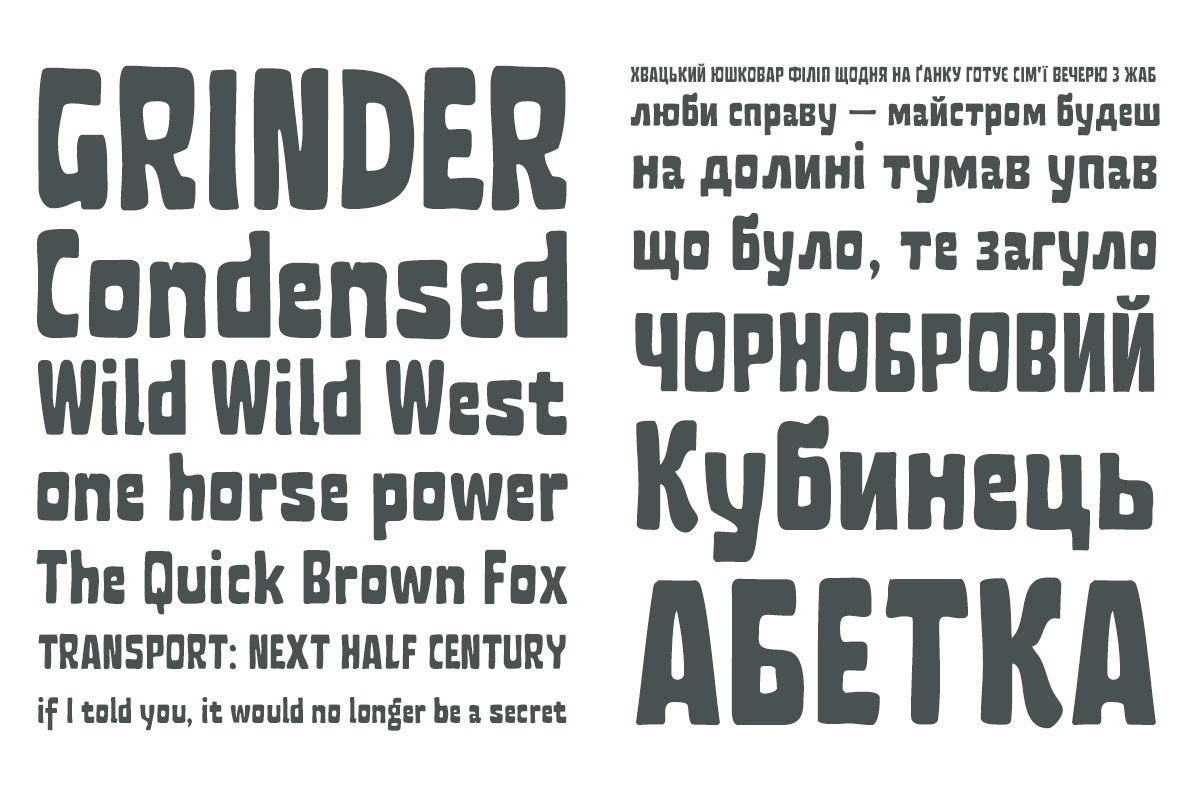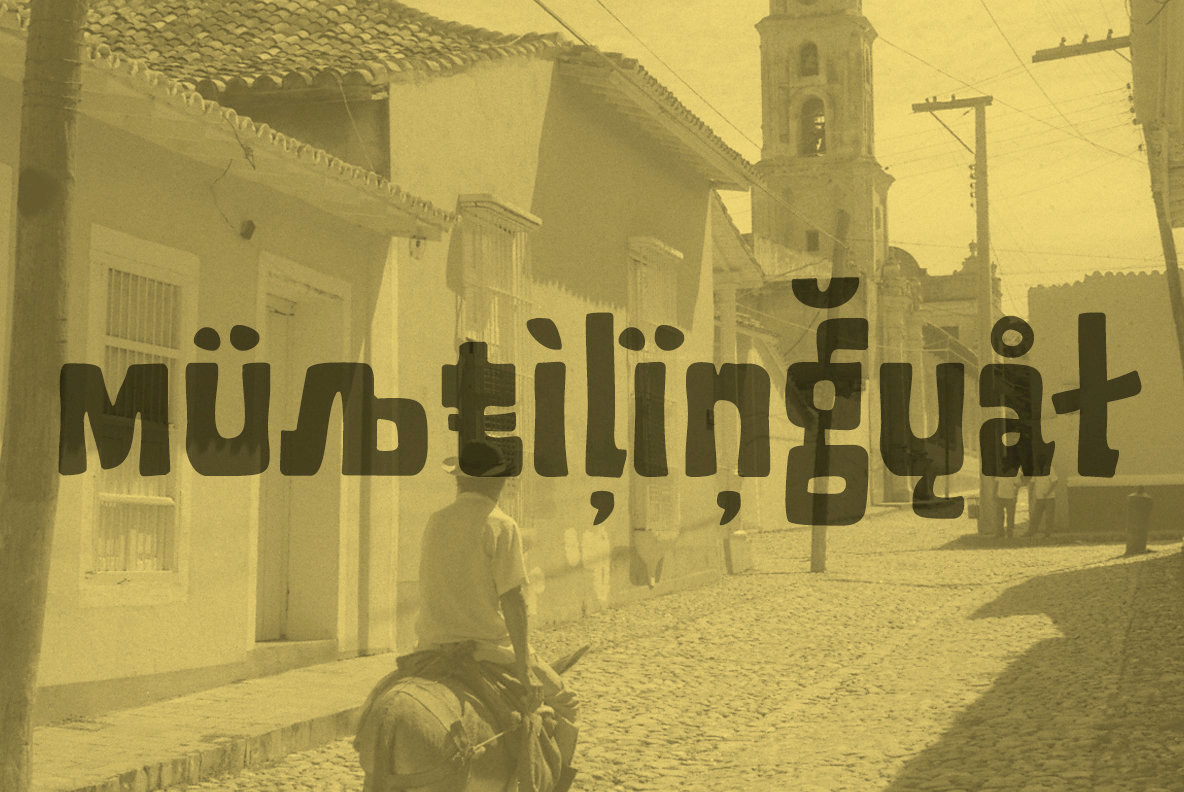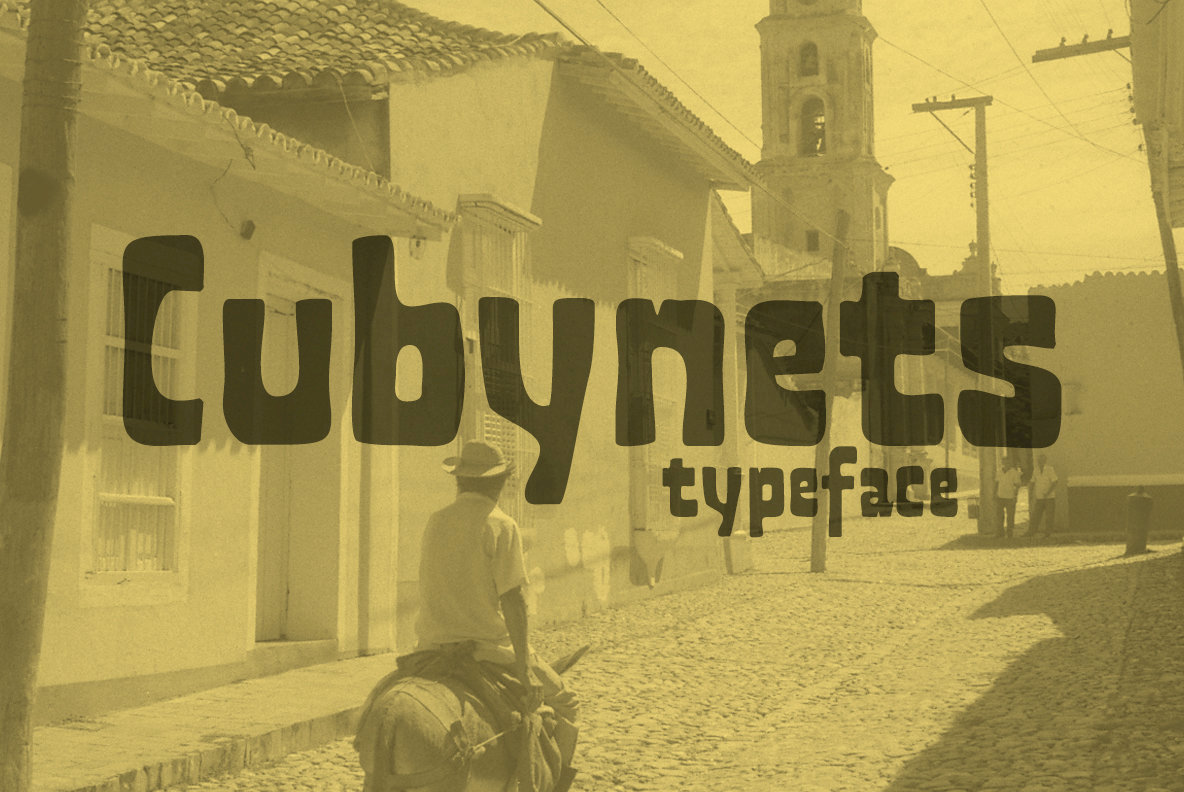
Cubynets 4F Font
Cubynets 4F
Cubynets 4F, designed by Sergiy Tkachenko, offers a sleek and modern aesthetic for any design project. Its geometric structure provides clean lines and a distinct visual appeal, making it an excellent choice for contemporary branding and digital creations.Cubynets 4F: A Modern Geometric Typeface